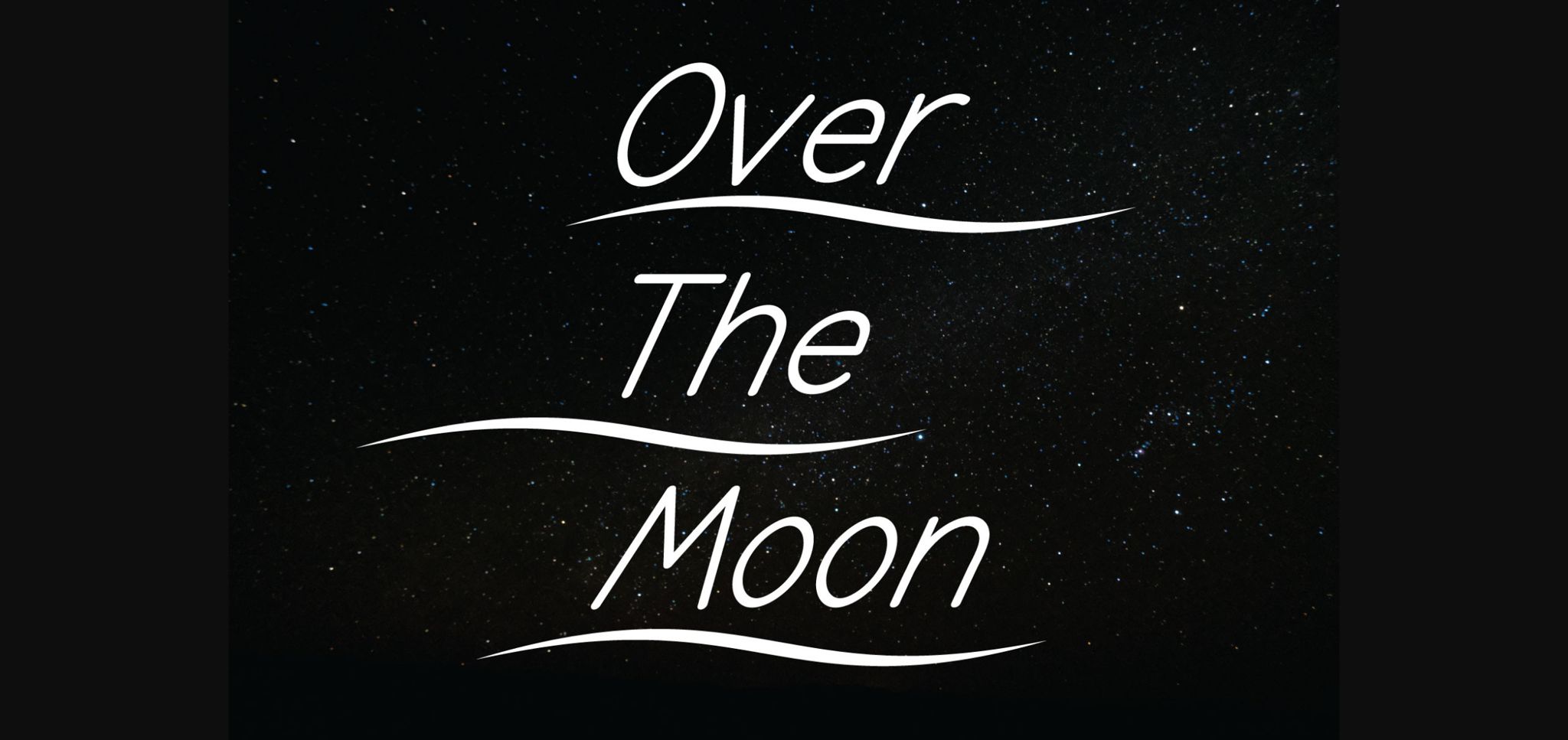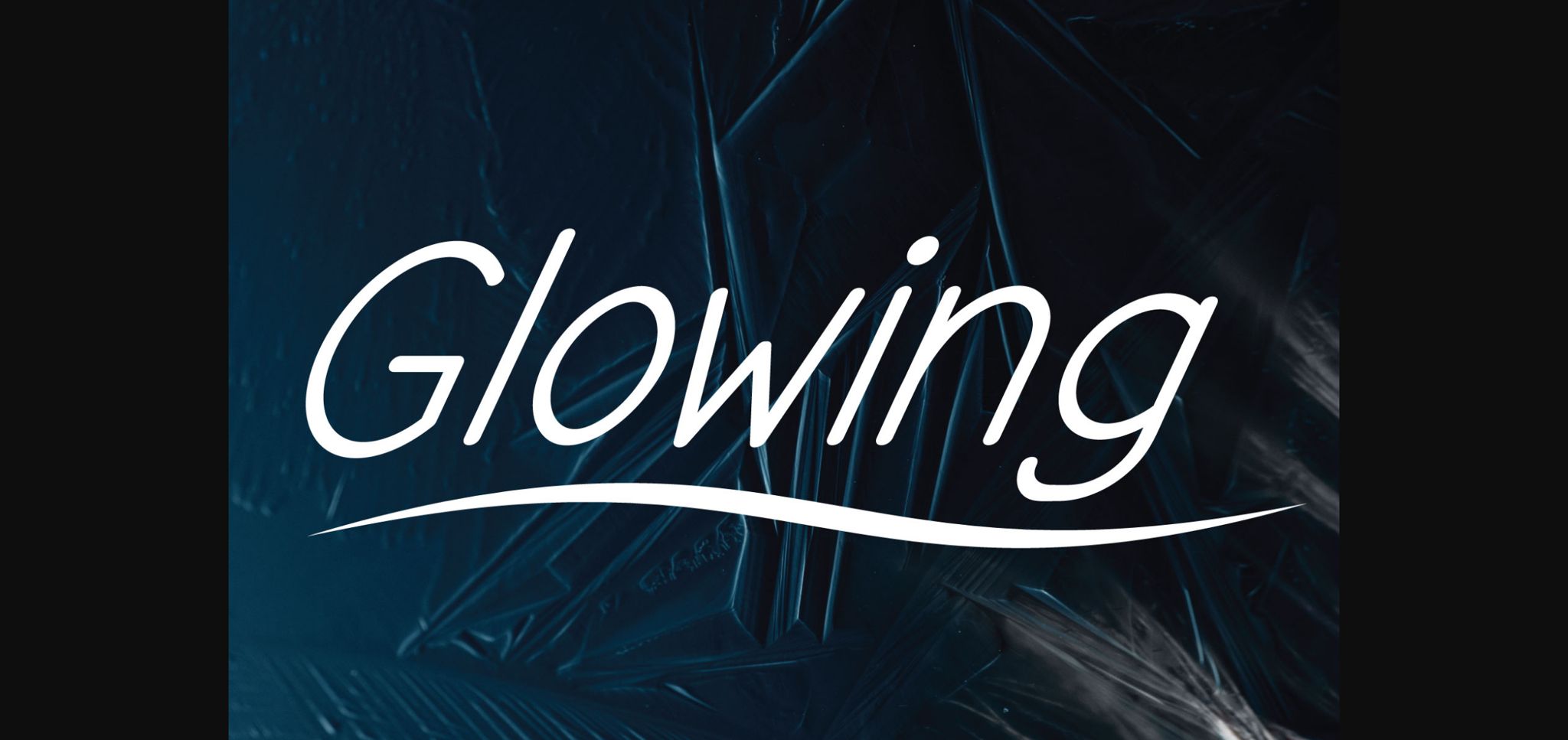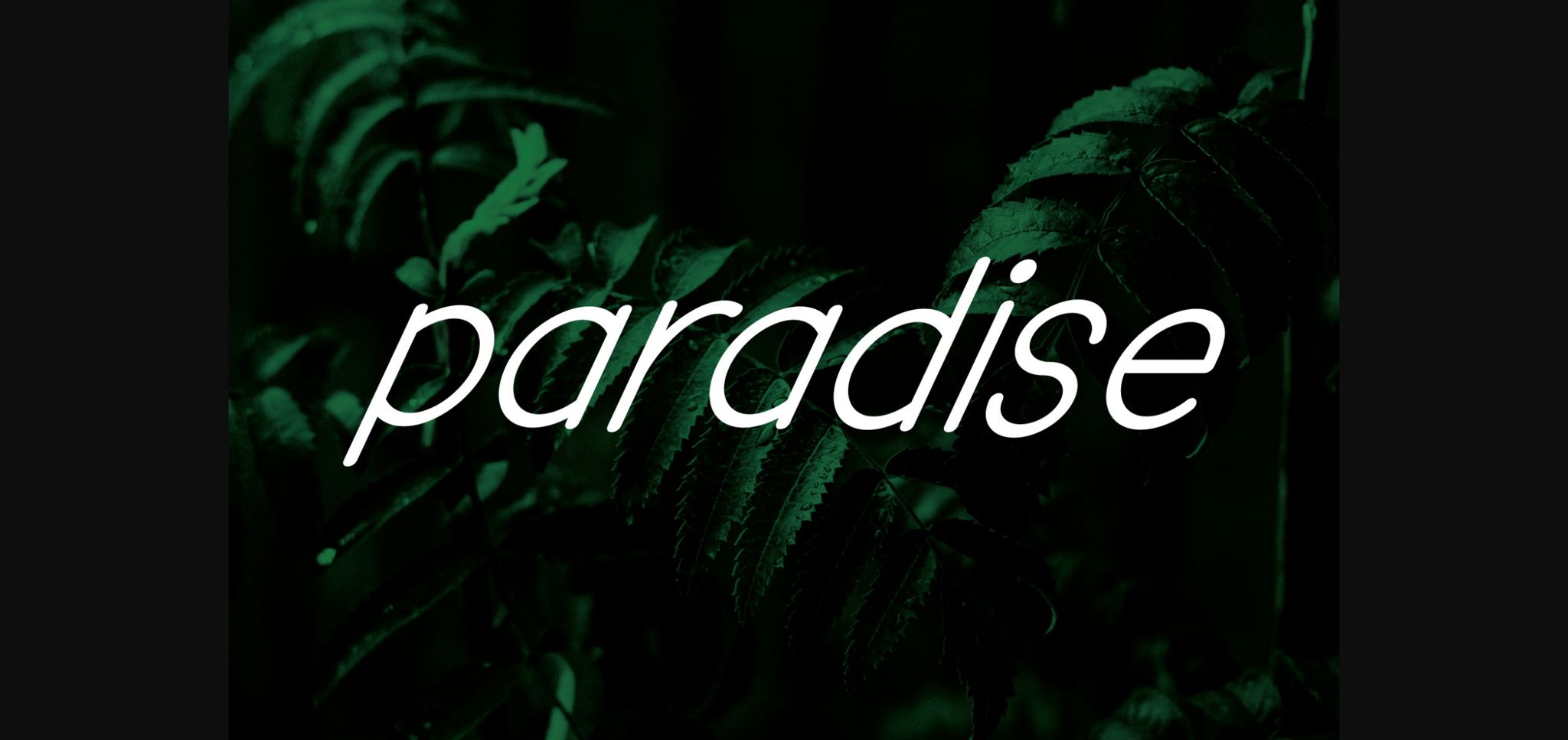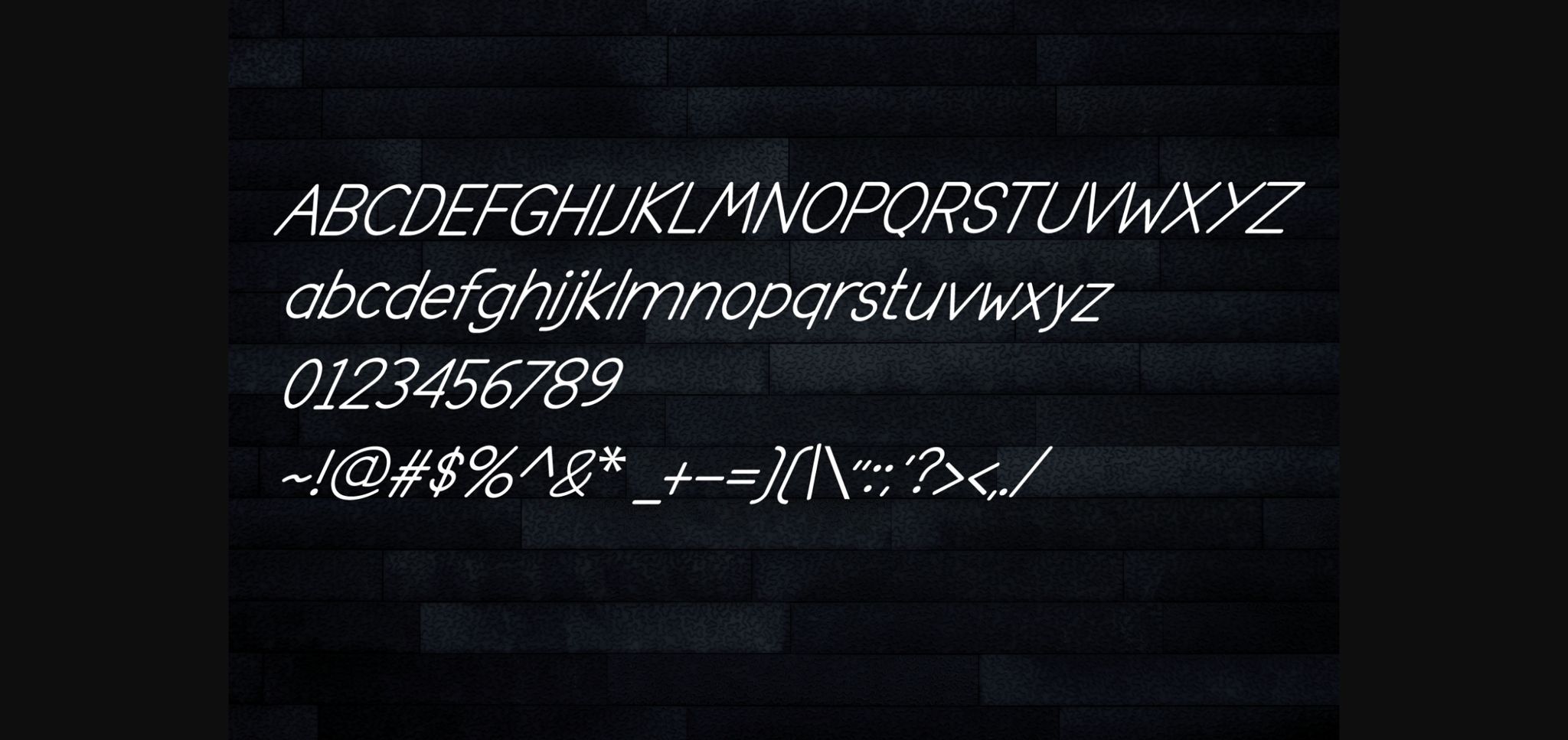
Over the Moon Font
About Over the Moon Font
Over the Moon is a simple and incredibly versatile italic sans serif font. It can easily be matched to an incredibly large set of projects, so add it to your creative ideas and notice how it makes them stand out!